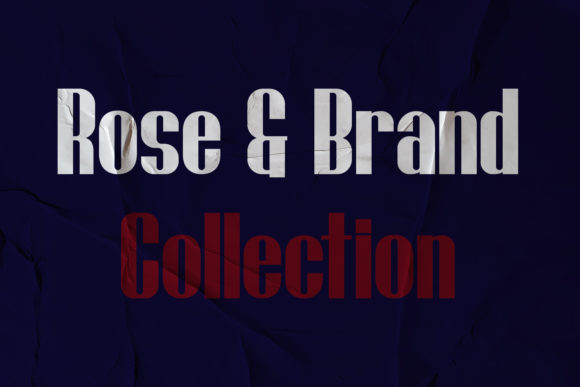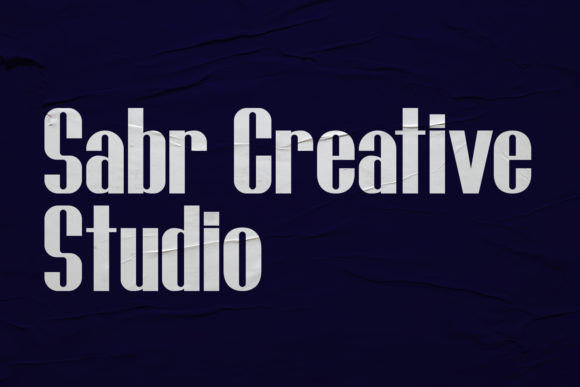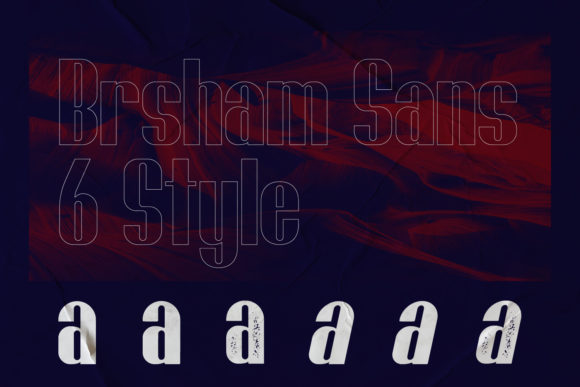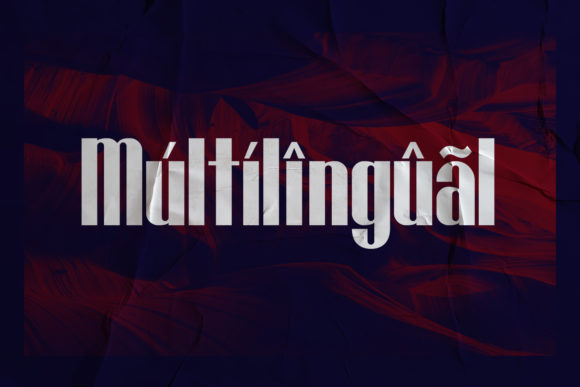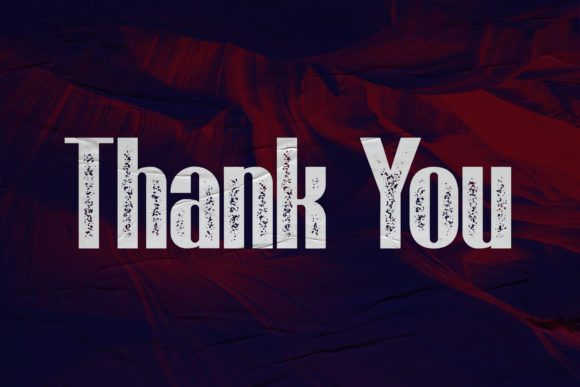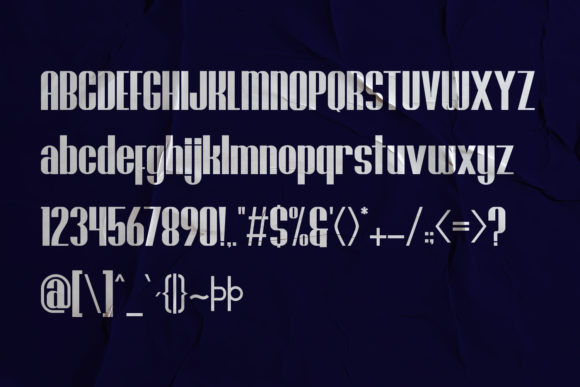
Discover the Bold and Fun Brasham Font: Elevate Your Designs with its Unique Vibe
Are you tired of using the same old fonts in your designs? Look no further than the Brasham Font, a fun and cool display font that’s sure to add a bold vibe to your projects. In this article, we’ll dive into the world of Brasham Font, exploring its unique features, and how you can get inspired by its one-of-a-kind look.
What is Brasham Font?
Brasham Font is a display font designed to make a statement. With its bold and edgy aesthetic, it’s perfect for designers and crafters looking to add a touch of personality to their work. Whether you’re creating a logo, poster, or social media graphic, Brasham Font is sure to turn heads.
Unique Features of Brasham Font
So, what sets Brasham Font apart from other fonts out there? Here are just a few of its unique features:
- Bold and Edgy Aesthetic: Brasham Font has a bold and edgy vibe that’s perfect for making a statement.
- Unique Letterforms: Each letterform in Brasham Font has been carefully crafted to create a truly unique look.
- Highly Versatile: Whether you’re creating a logo, poster, or social media graphic, Brasham Font is highly versatile and can be used in a variety of contexts.
How to Use Brasham Font in Your Designs
Now that we’ve covered the basics of Brasham Font, let’s dive into how you can use it in your designs. Here are a few ideas to get you started:
- Create a Bold Logo: Use Brasham Font to create a bold and eye-catching logo that’s sure to stand out.
- Make a Statement with Posters: Add a touch of personality to your posters with Brasham Font, perfect for advertising, promoting an event, or simply adding some visual interest to a plain space.
- Elevate Your Social Media Graphics: Use Brasham Font to add a bold and edgy vibe to your social media graphics, perfect for grabbing the attention of your followers.
Tips and Tricks for Getting the Most out of Brasham Font
Here are a few tips and tricks for getting the most out of Brasham Font:
- Experiment with Different Colors: Brasham Font looks great in a variety of colors, so don’t be afraid to experiment and find the perfect hue for your design.
- Play with Font Sizes: Brasham Font is highly versatile, so try playing with different font sizes to create visual interest and add depth to your design.
- Combine with Other Fonts: Don’t be afraid to combine Brasham Font with other fonts to create a truly unique look.
In conclusion, Brasham Font is a fun and cool display font that’s sure to add a bold vibe to your designs. With its unique features, highly versatile design, and endless possibilities for creative expression, it’s the perfect addition to any designer’s toolkit. So why not give Brasham Font a try and see how it can elevate your designs?
Get Inspired by Brasham Font
Ready to get inspired by Brasham Font? Take a look at some of the amazing designs created with this font and see how you can use it to take your designs to the next level.